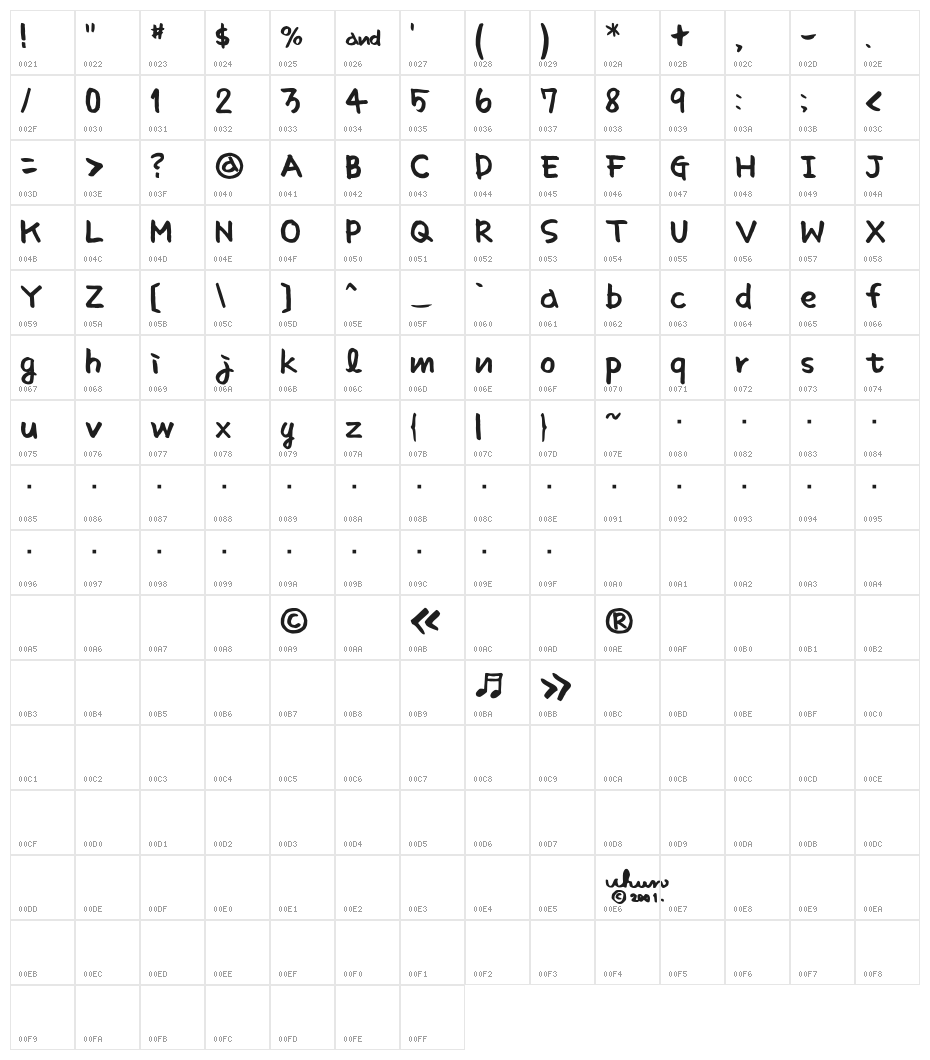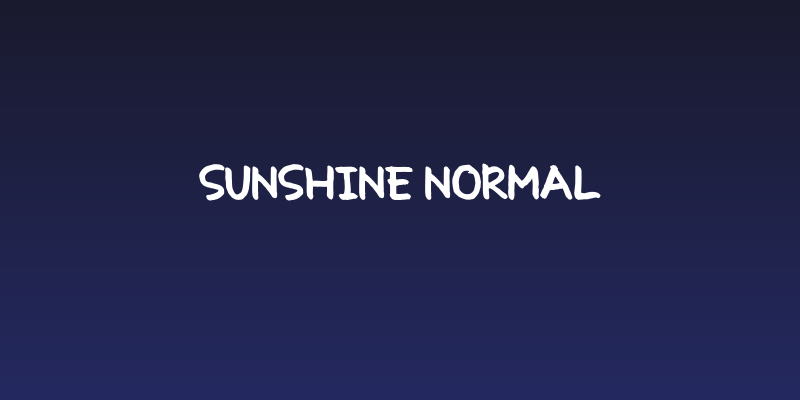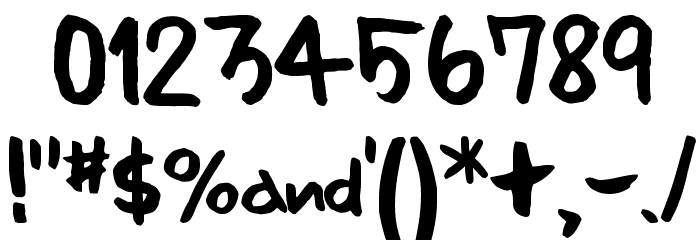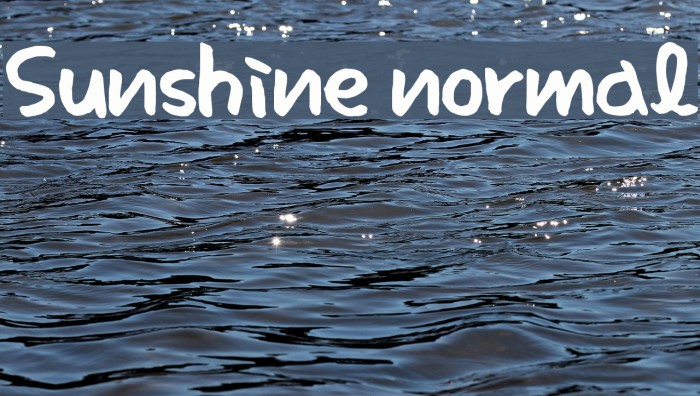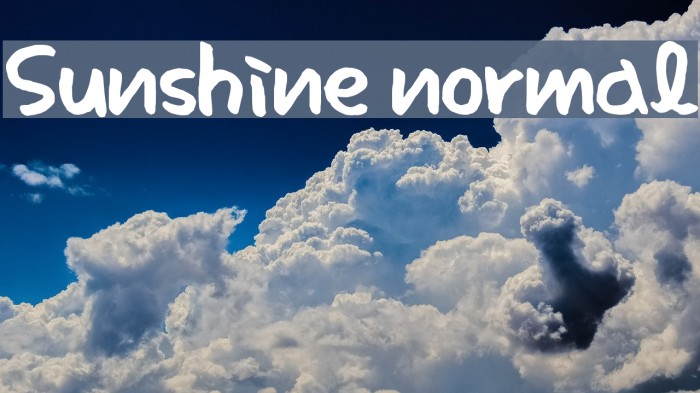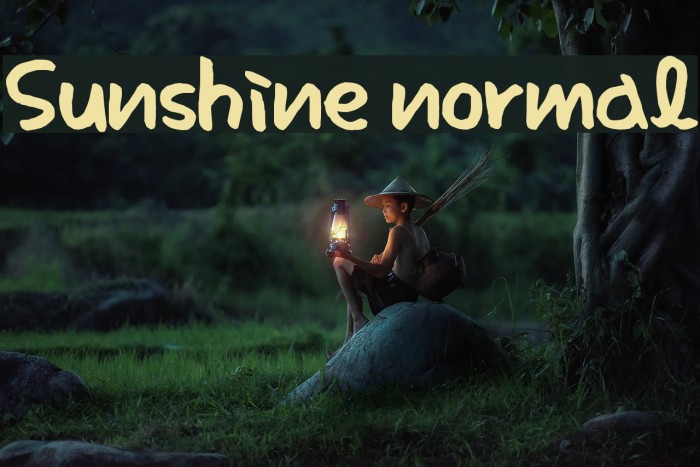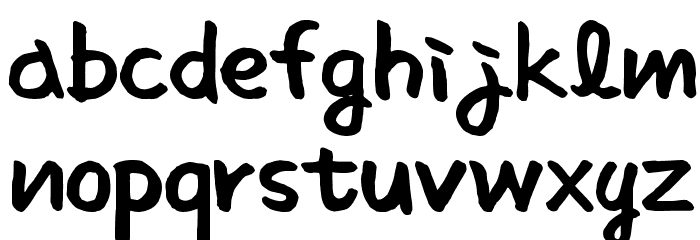
Sunshine normal Font
Sunshine normal Description
This font features a playful and casual handwritten style, characterized by its bold and slightly irregular strokes. The letters have a lively and dynamic appearance, with rounded edges and a consistent thickness throughout. The uppercase and lowercase letters maintain a cohesive look, while the numerals and special characters complement the overall design. This font exudes a friendly and approachable vibe, making it suitable for projects that aim to convey warmth and creativity.